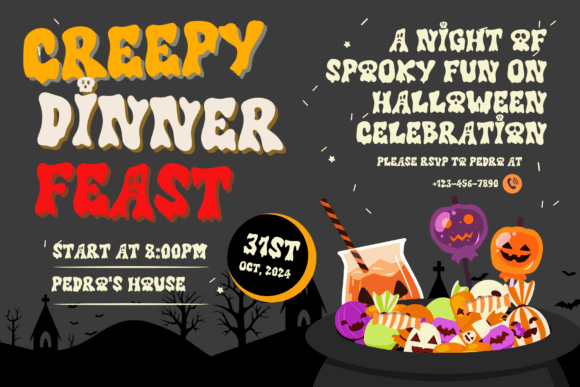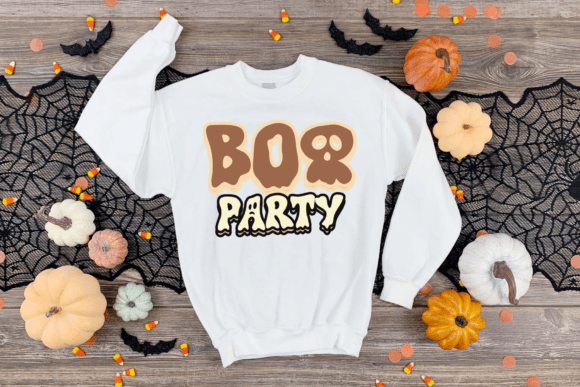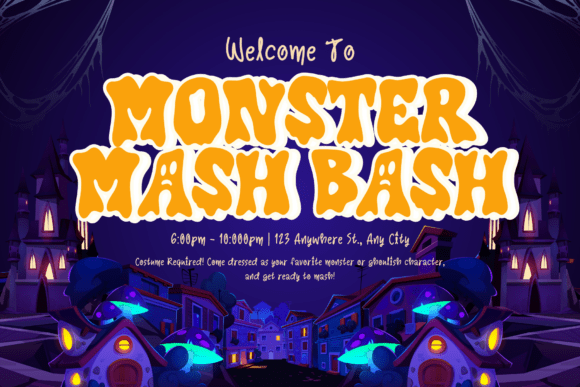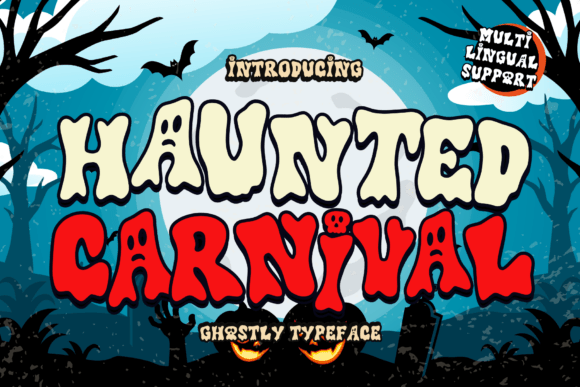
Introduction to Haunted Carnival Font
Haunted Carnival is a spooky Halloween font inspired by chilling ghost stories and eerie gothic vibes.
With playful yet creepy curves, it perfectly captures the atmosphere of haunted houses, monsters, and midnight mysteries Ideal for Halloween party posters, spooky invitations, horror movie titles, or any project that needs a touch of darkness and fantasy.